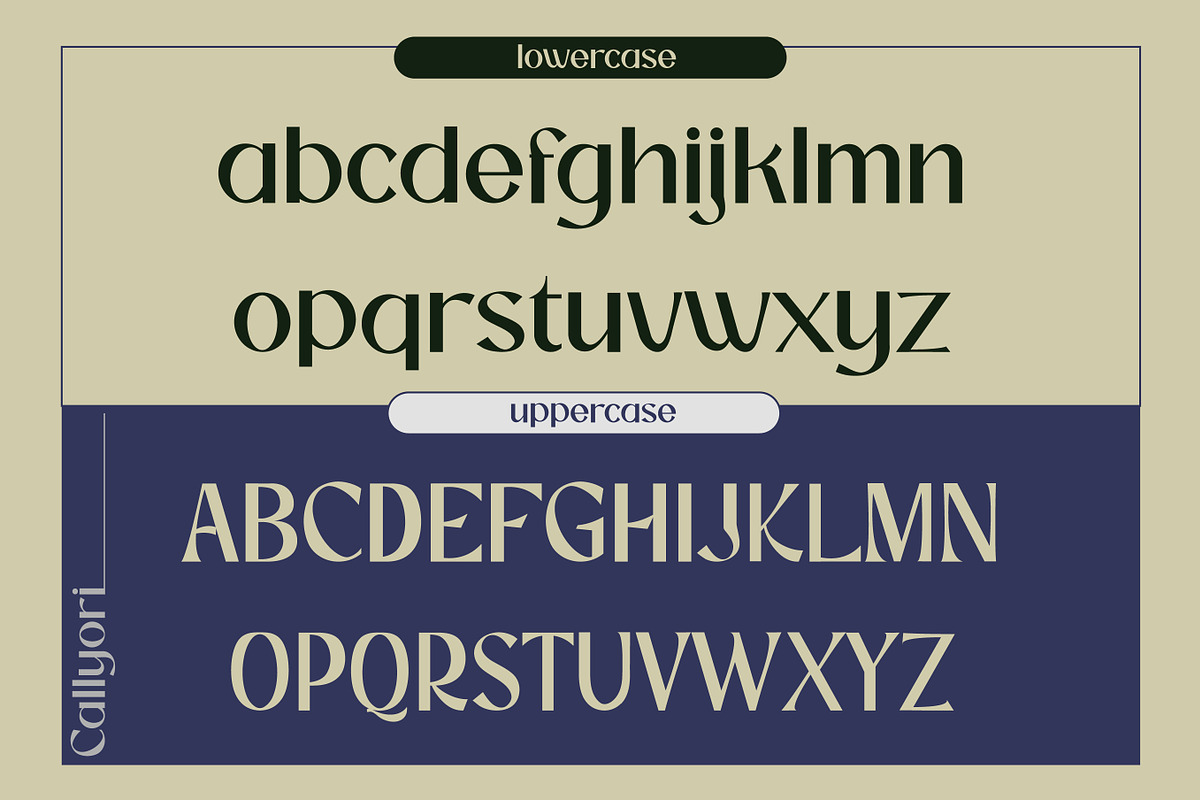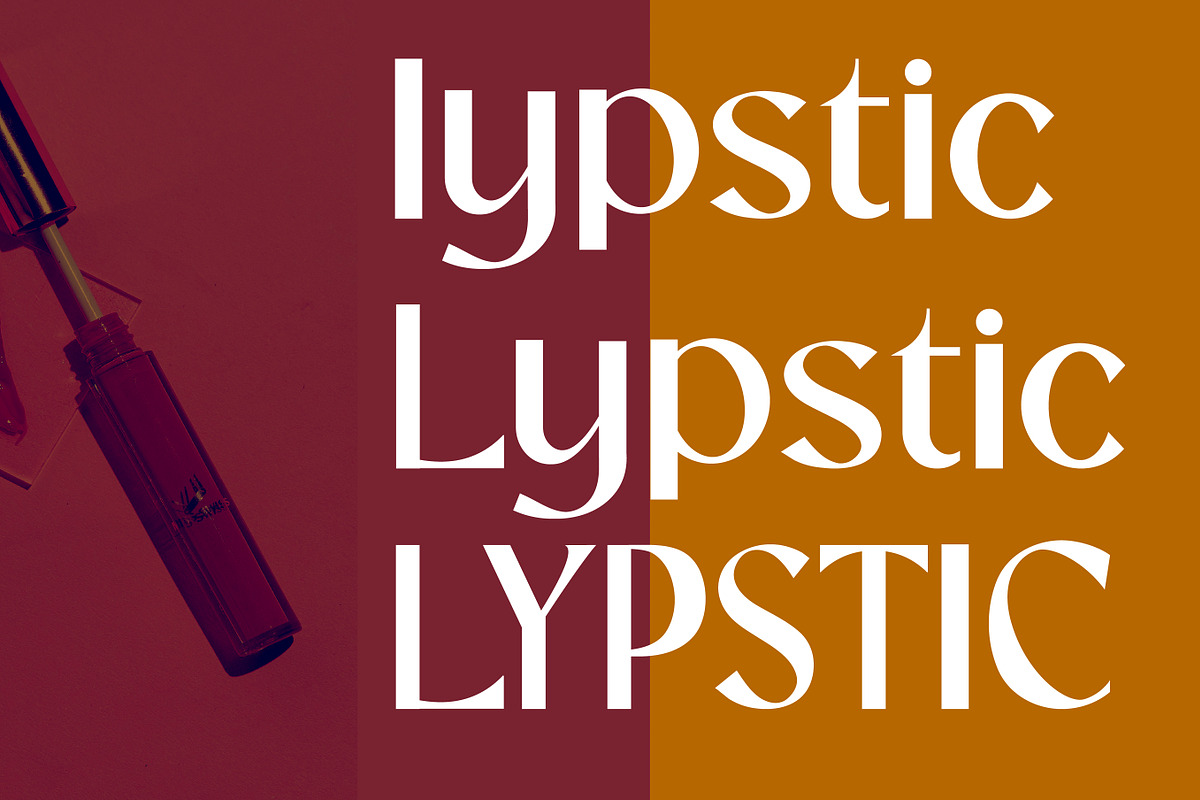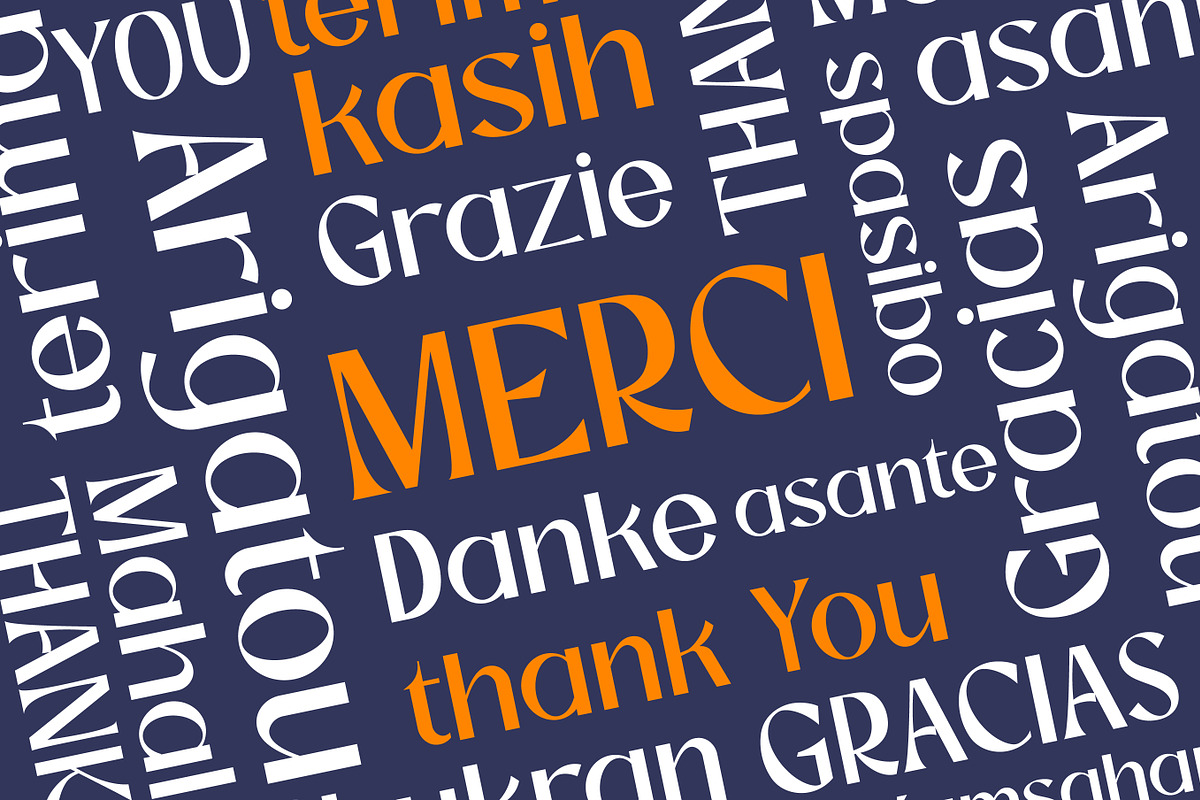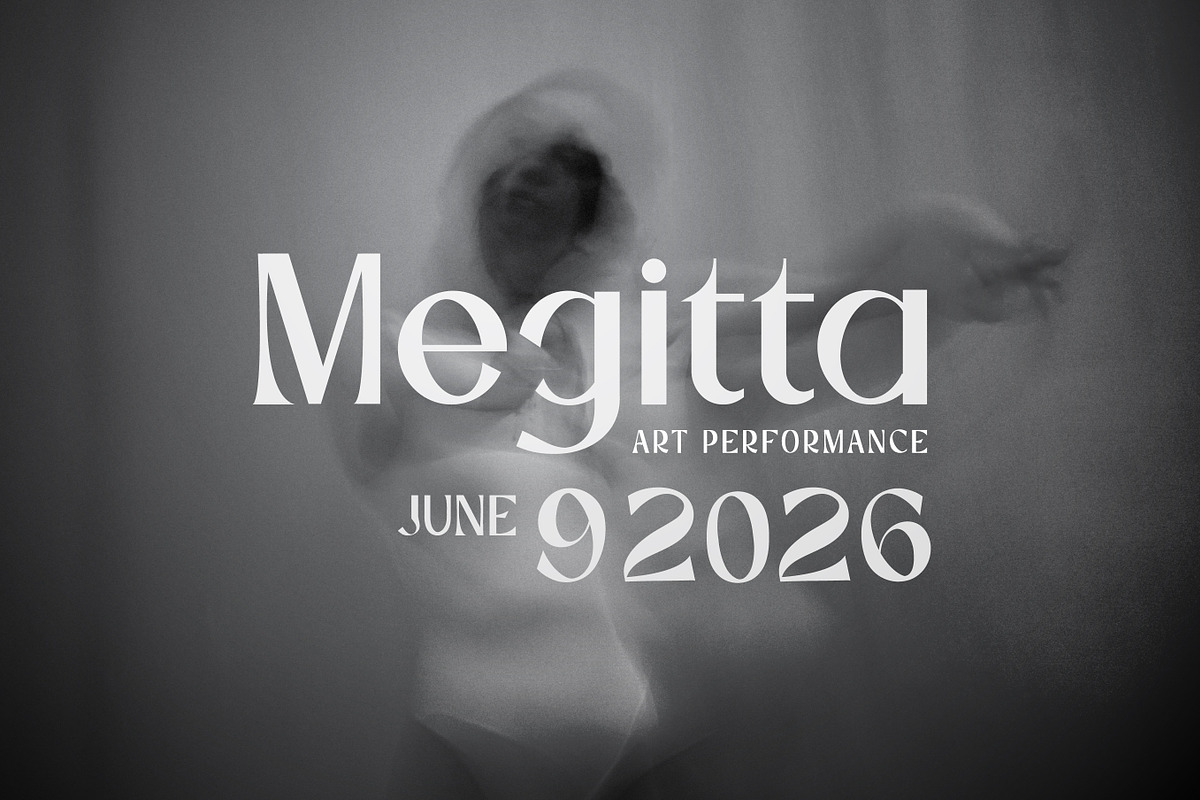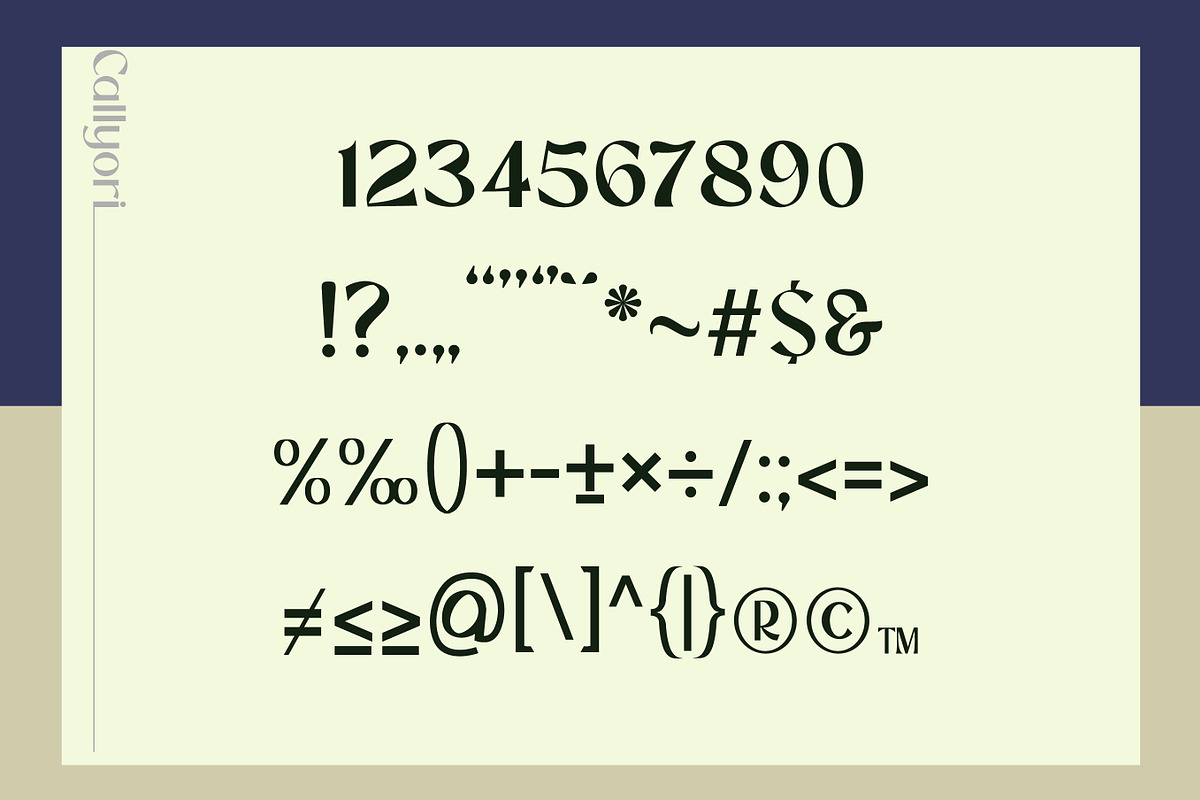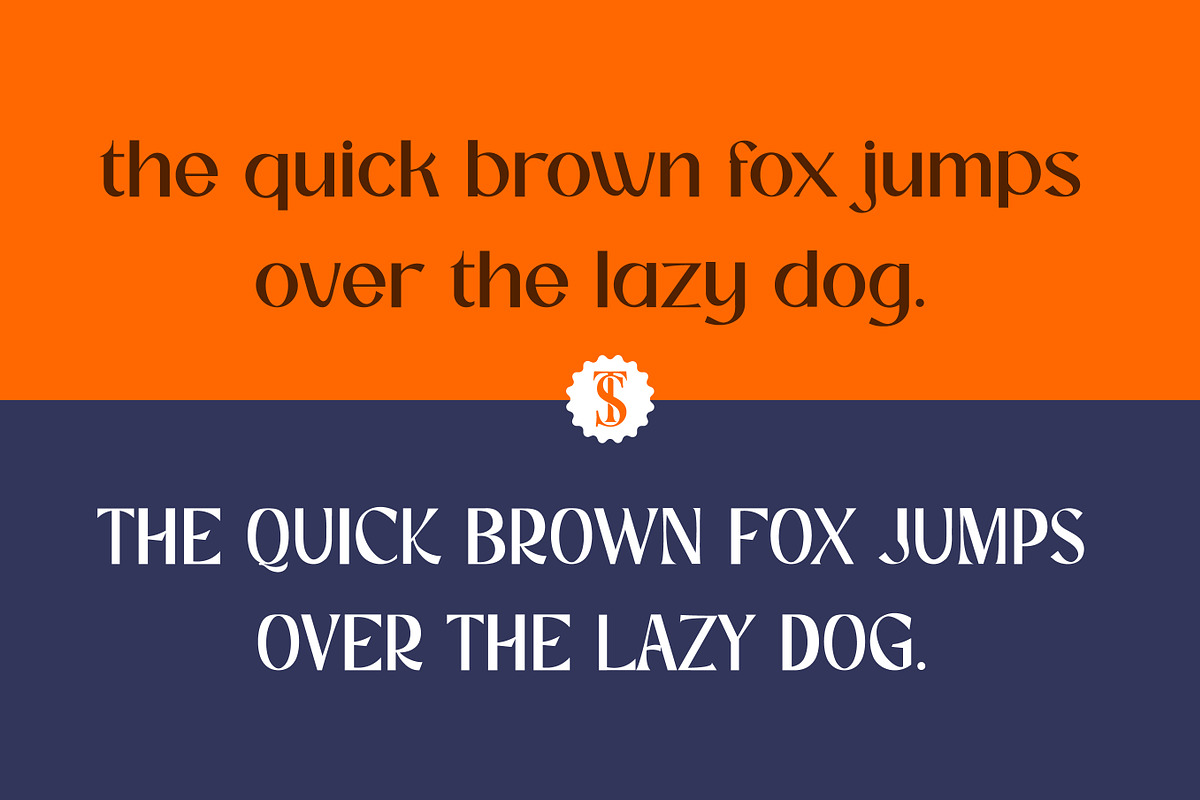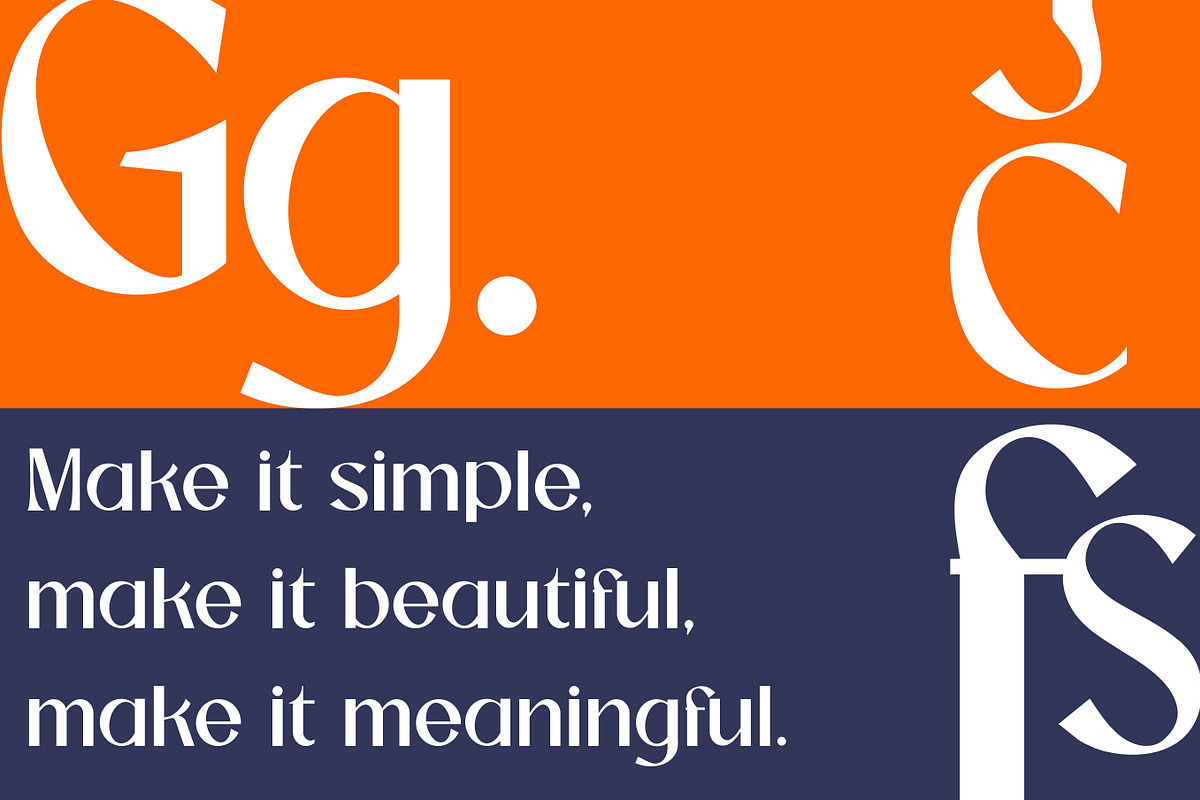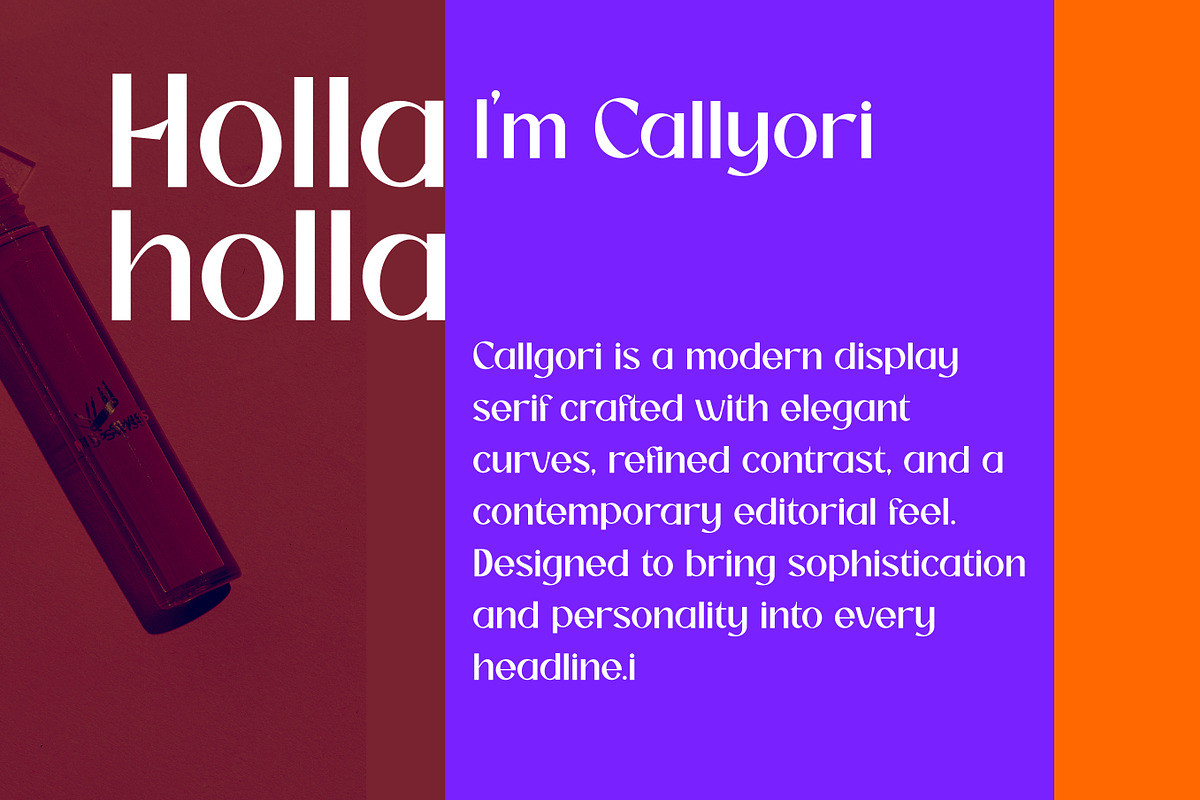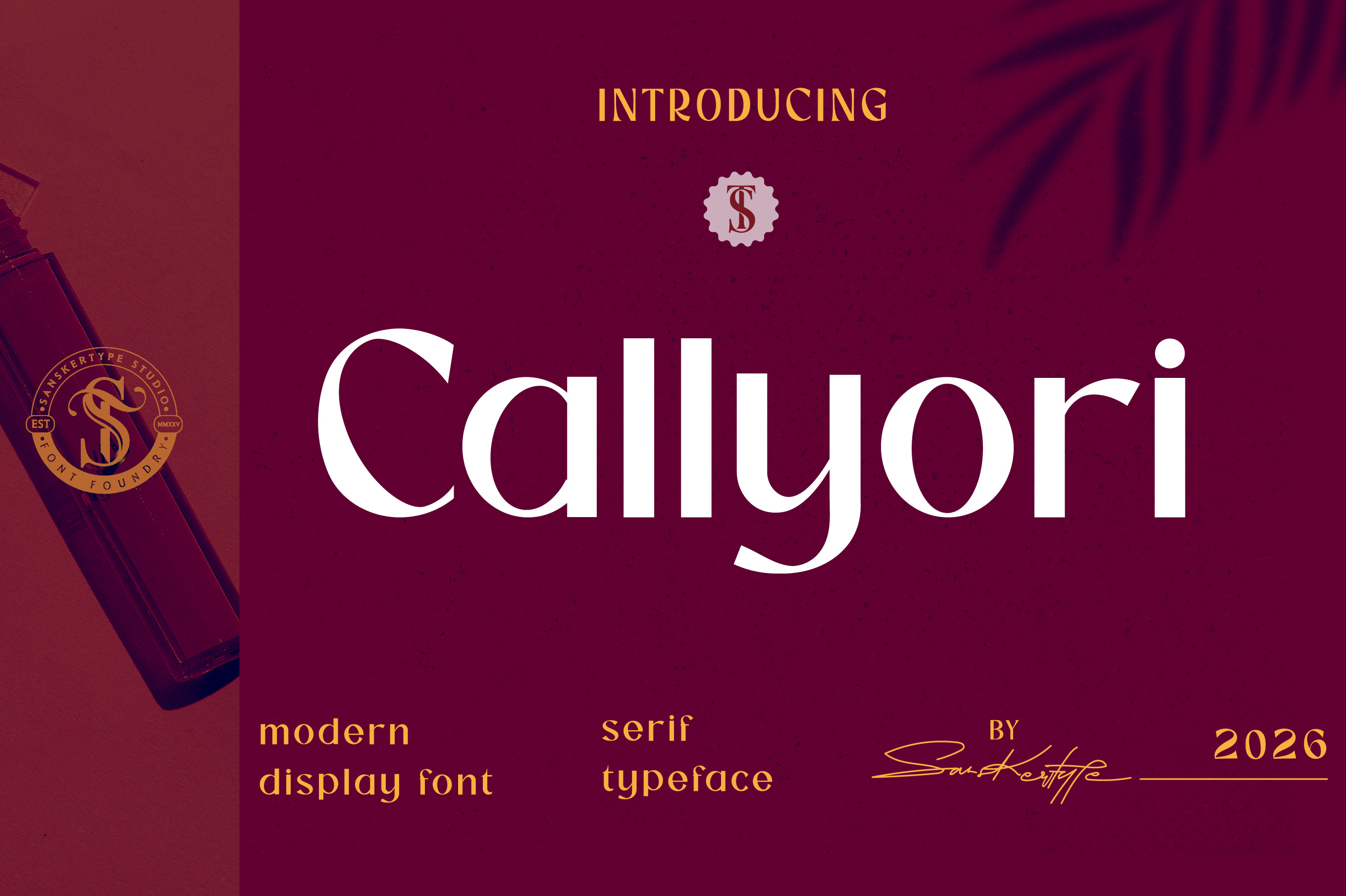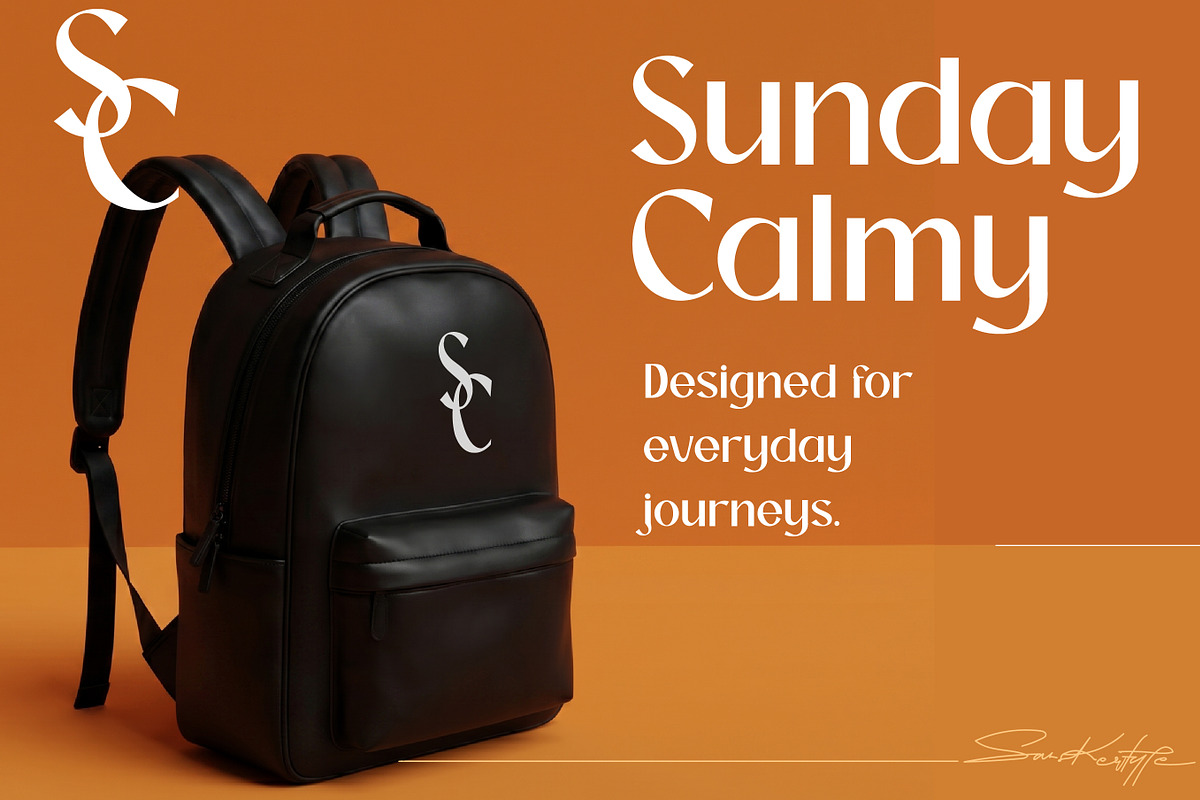
Callyori Sans - Modern Clean Font
Callyori is a sophisticated modern serif display font that blends timeless elegance with contemporary style. Designed with graceful curves, refined contrasts, and distinctive letterforms, this typeface creates a luxurious and memorable impression in every design.
Whether you're crafting premium branding, fashion editorials, product packaging, or eye-catching headlines, Callyori delivers a polished and professional aesthetic that elevates your visual identity. Its stylish serif details make it perfect for projects that demand both beauty and confidence.
Elegant yet versatile, Callyori is a modern display typeface created to help your designs stand out with sophistication and charm.
Luxury Branding
Fashion Logos
Editorial & Magazine Design
Beauty & Cosmetic Packaging
Wedding Stationery
Product Labels
Website Headlines
Boutique Branding
Premium Advertising
Modern Serif Style
Display Typeface